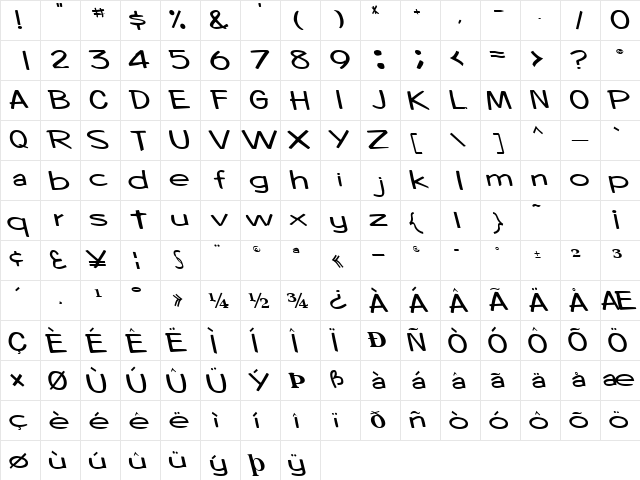
CoinageOfMind Regular Font Preview
CoinageOfMind Regular
CoinageOfMind Regular Font Details
Design Context for CoinageOfMind Typeface
CoinageOfMind is a composed and adaptable typeface that performs quietly and consistently across a wide range of design contexts.